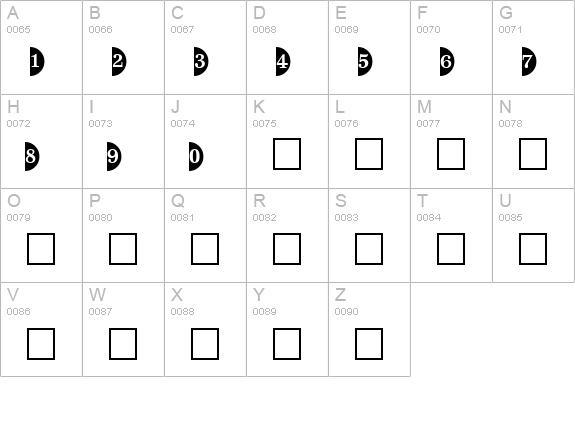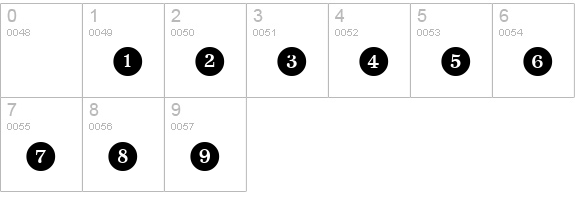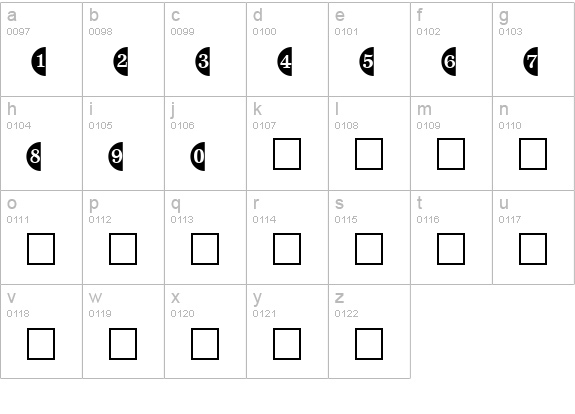
CircledNumbers Bold Font Details
CircledNumbers Bold is a strong, high-contrast variant in the CircledNumbers typeface family \xE2\x80\x94 well suited to headlines, attention-grabbing titles, and strong calls-to-action.
CircledNumbers Bold font is a modern and eye-catching typeface that features stylish numbers enclosed in sleek circles. This font exudes a contemporary and professional look, making it perfect for various design projects such as logos, headings, and posters. The bold weight of the font ensures that your text stands out and commands attention. Whether you are creating a digital design or printed material, CircledNumbers Bold font will add a touch of sophistication to your work. Best of all, CircledNumbers Bold font is freely available to download at FontsMarket.com. This means you can easily access this stylish font and incorporate it into your projects without any cost. Don't miss out on the opportunity to enhance your designs with the striking CircledNumbers Bold font. Download it today and elevate your typography game!